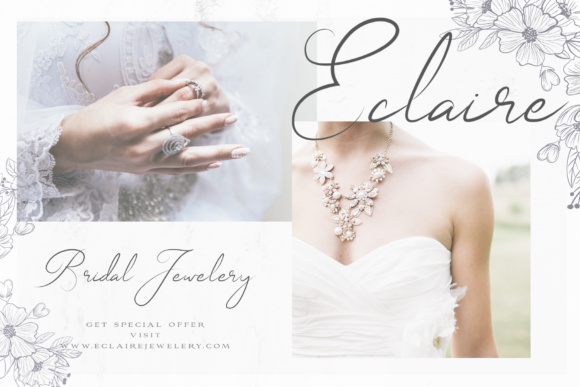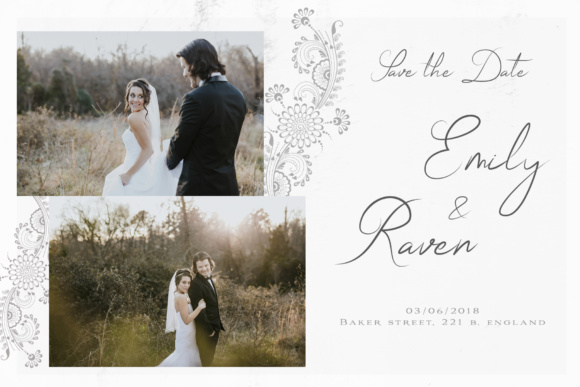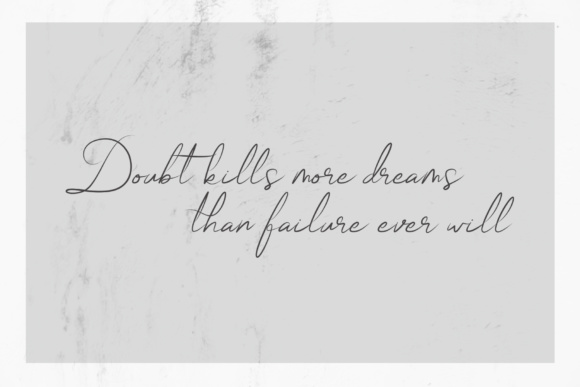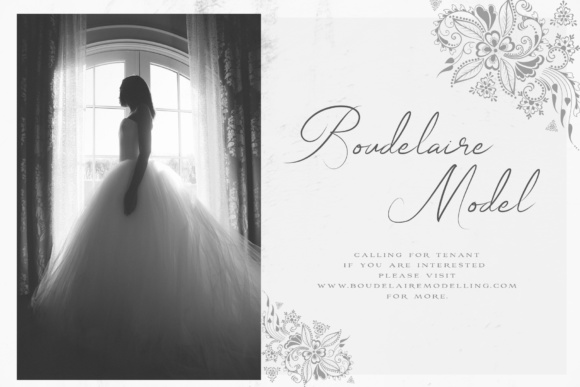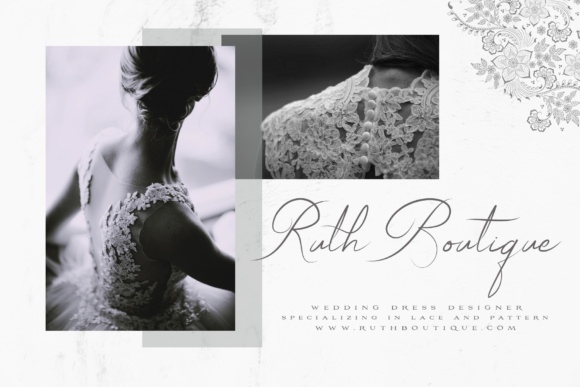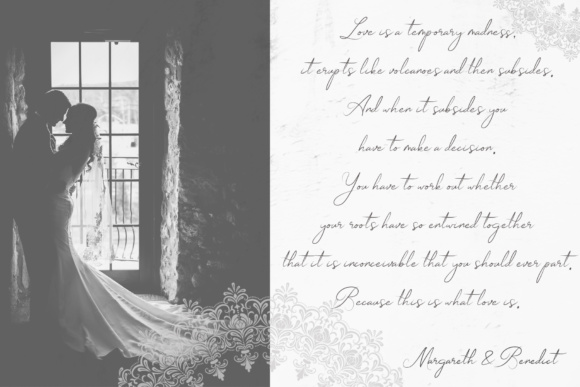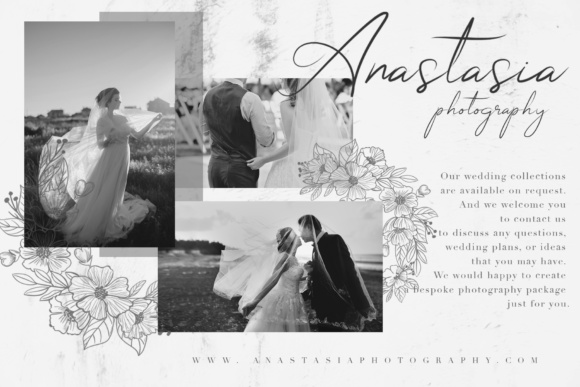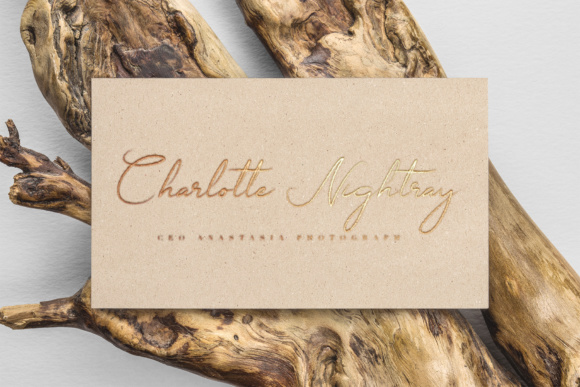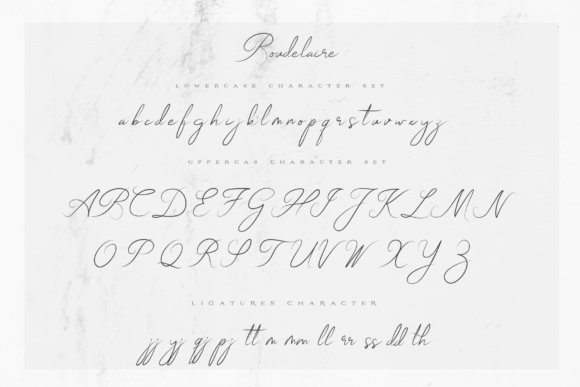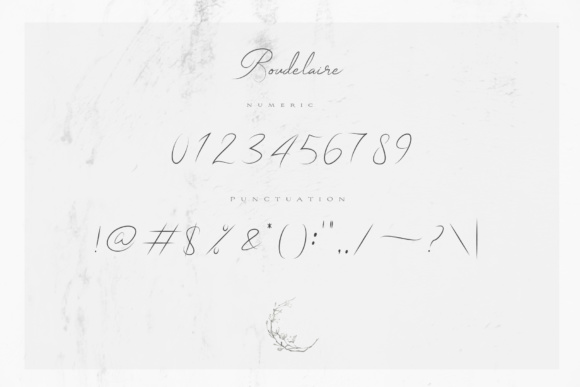
Boudelaire Font
Boudelaire is a stunningly elegant feminine script font, ideal for use in special event designs and more. This font lends itself to monograms and logotype, and will give every projects a refined and classy appeal.